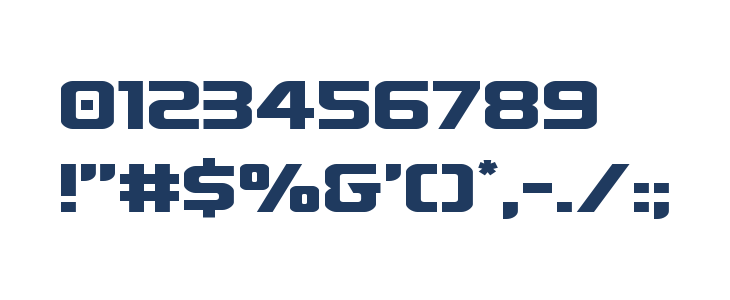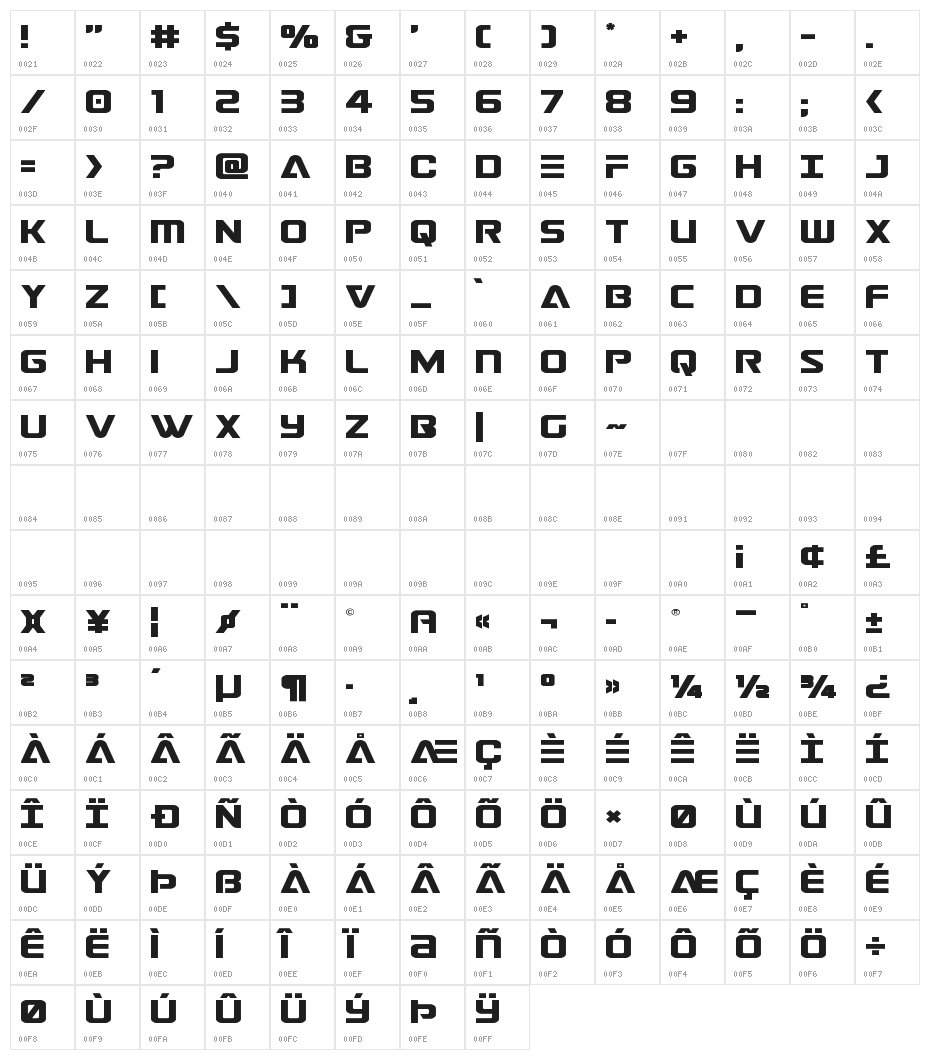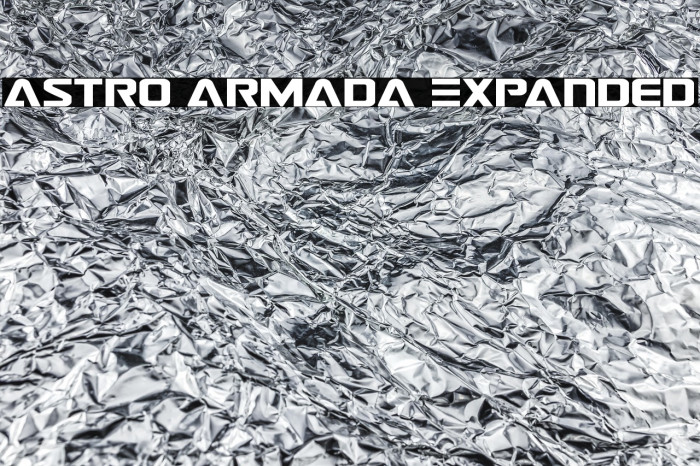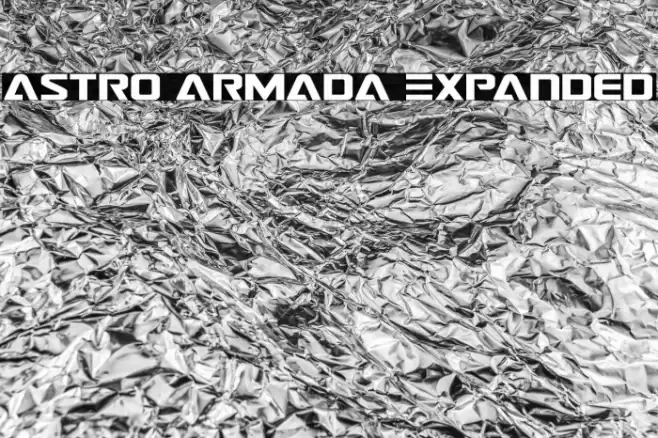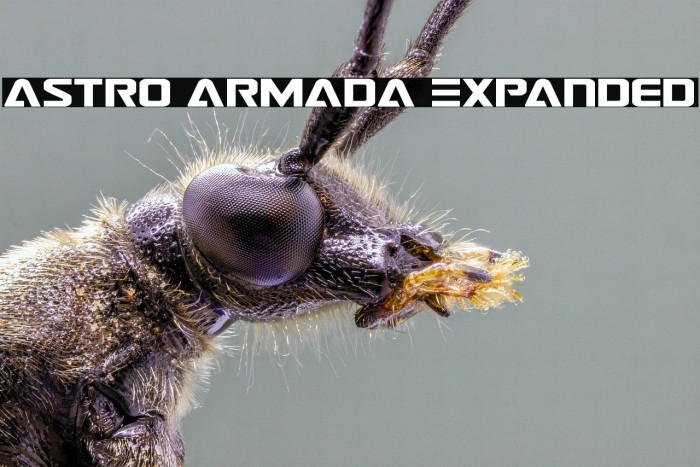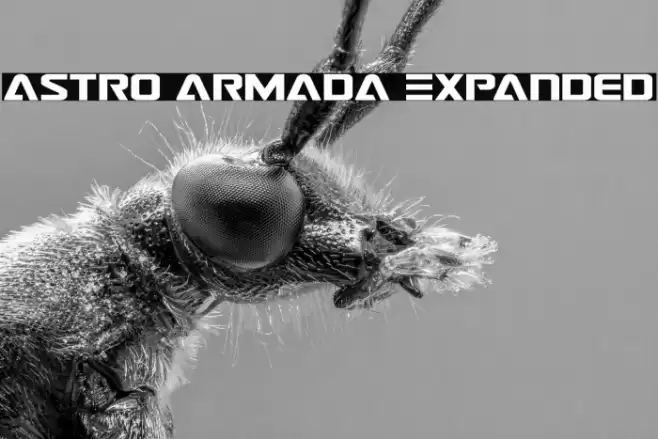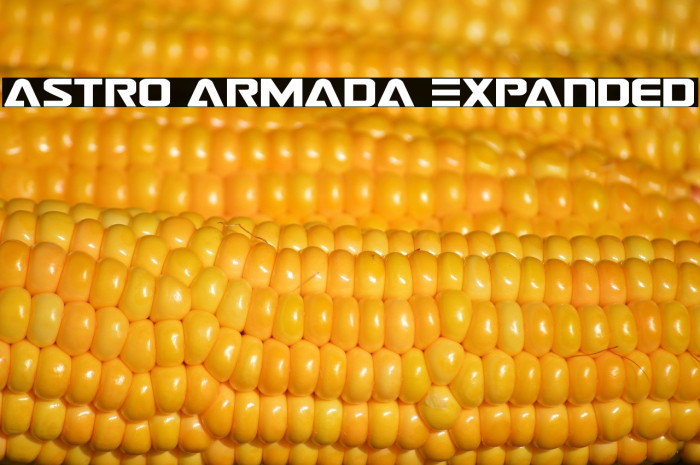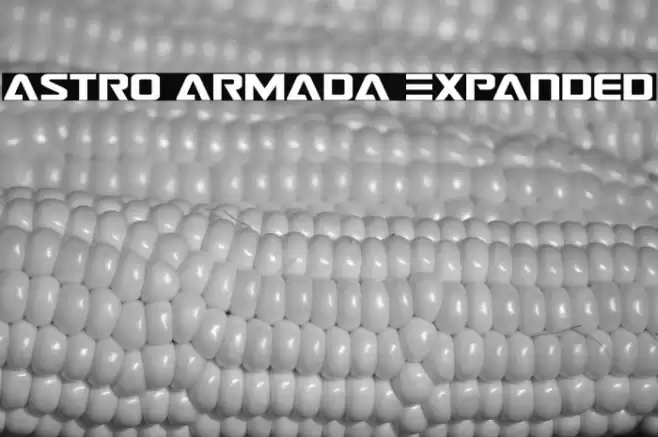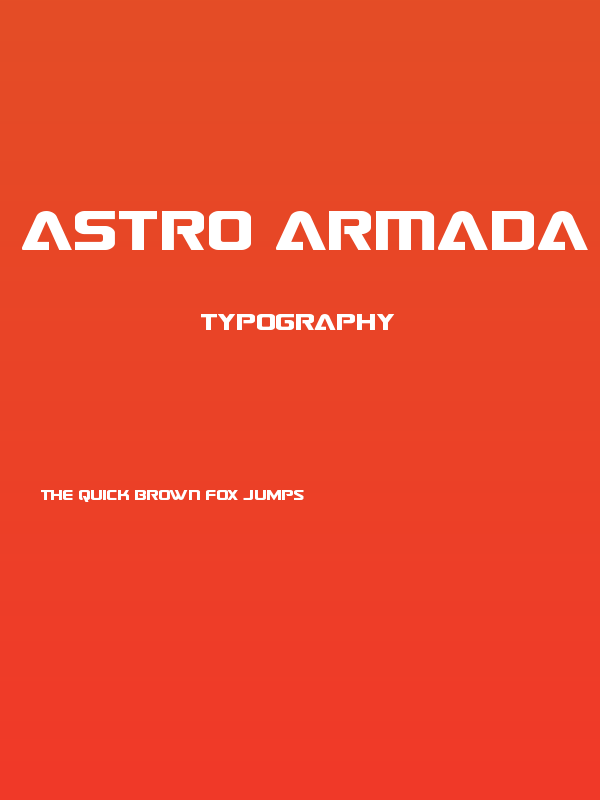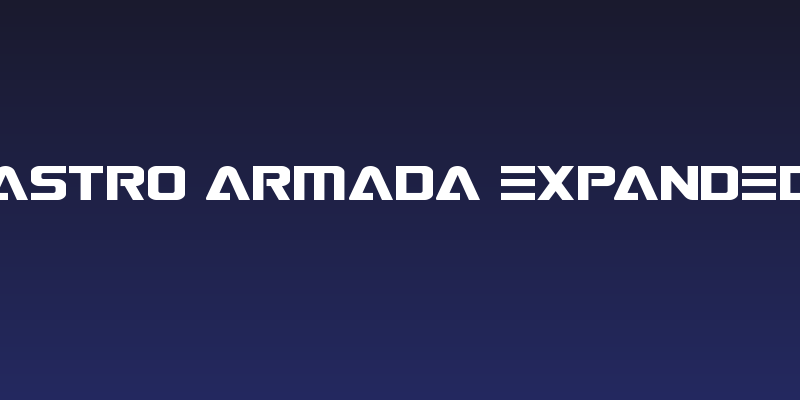
Astro Armada Expanded Font
Astro Armada Expanded Description
This font features a bold, futuristic design with a distinctly angular and geometric style. The characters are crafted with sharp edges and a uniform thickness, giving it a strong and commanding presence. The uppercase letters are particularly striking, with unique cuts and shapes that add a sense of movement and dynamism. The numbers and special characters maintain this aesthetic, ensuring consistency across all elements. The font's expanded width allows for excellent readability, making it suitable for impactful headlines and titles.
WidthExpanded
Overall StyleFuturistic
Proposed ProjectsIdeal for sci-fi themed projects, video game titles, technology branding, and futuristic posters.